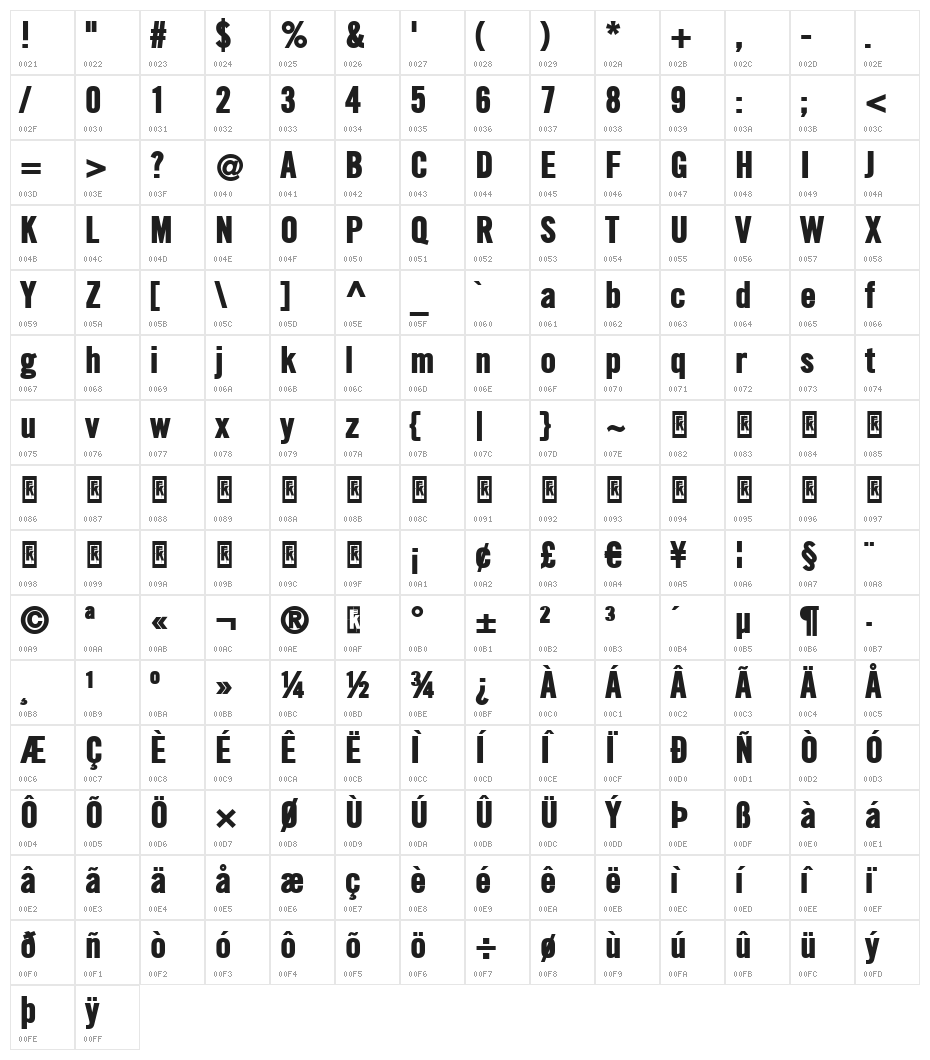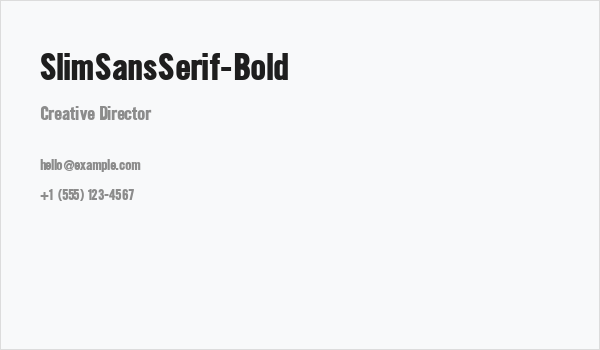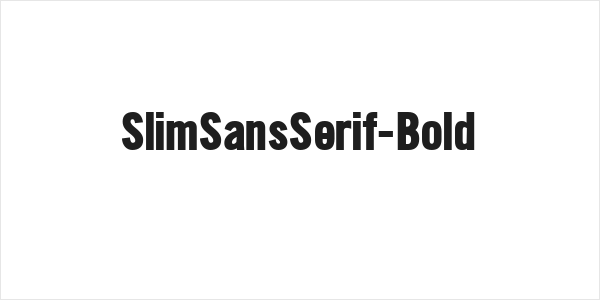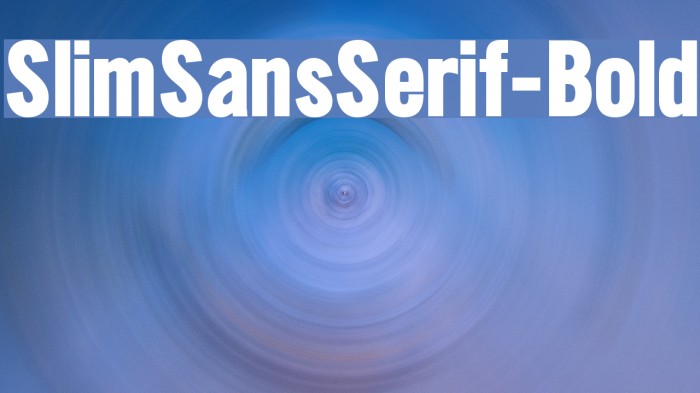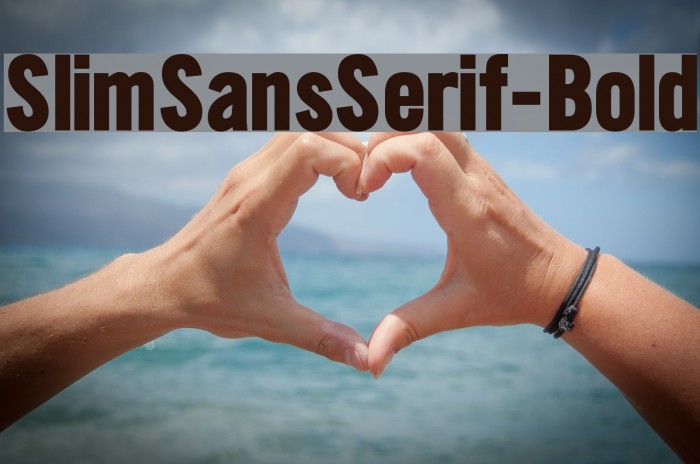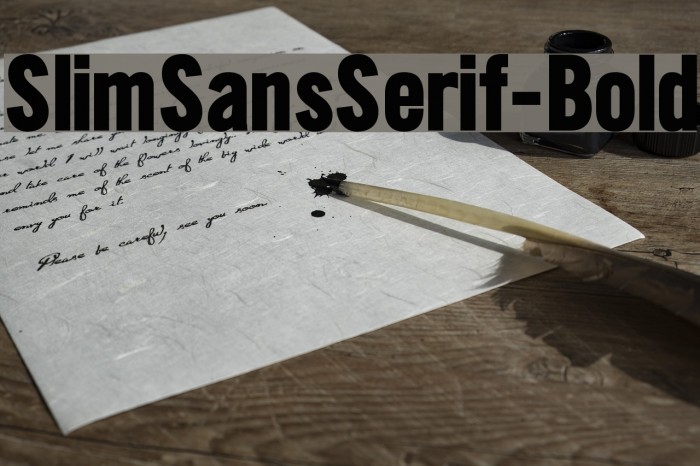
SlimSansSerif-Bold Font
SlimSansSerif-Bold Description
This font is a bold, sans-serif typeface characterized by its strong and impactful presence. The letters are uniformly thick, providing a consistent and powerful look across all characters. The uppercase and lowercase letters maintain a uniform width, contributing to a cohesive and balanced appearance. The numerals are equally bold, ensuring they stand out clearly in any context. Special characters are designed with the same boldness, ensuring they integrate seamlessly with the alphanumeric characters. This font's boldness makes it ideal for making statements and capturing attention.
| Proposed Projects | Ideal for headlines, posters, branding, and any project requiring a bold statement. |